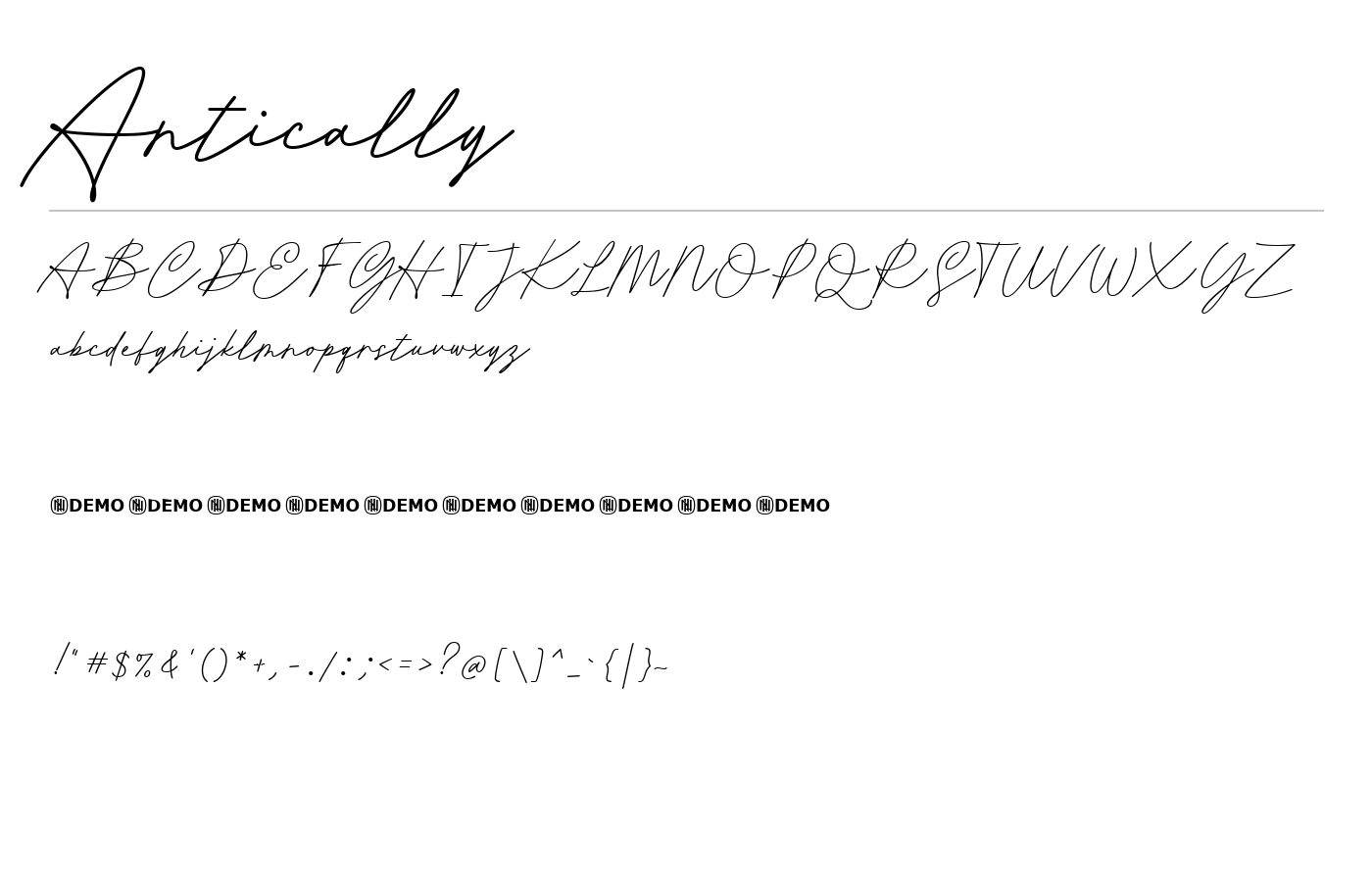
Antically is a delicate, elegant script font with a thin weight and flowing, handwritten style that gives it a personal and sophisticated feel. Its narrow, airy letterforms are perfect for adding a graceful touch to invitations, branding, and editorial designs where a refined and intimate mood is desired. This font works beautifully in projects that seek to communicate elegance and subtle charm.
Antically Font
About Antically Font